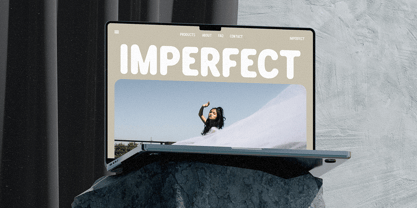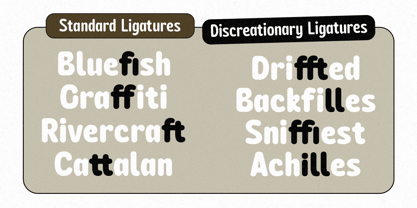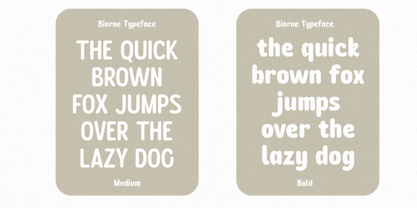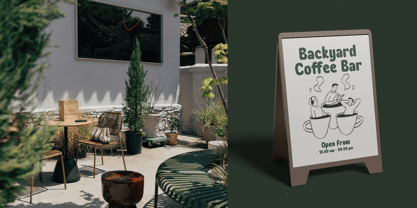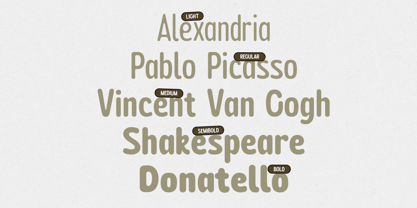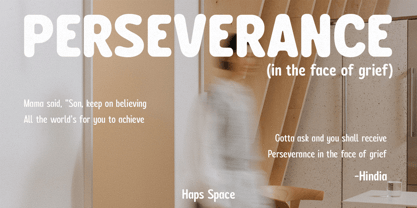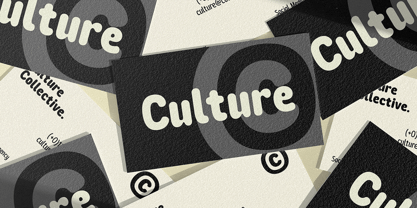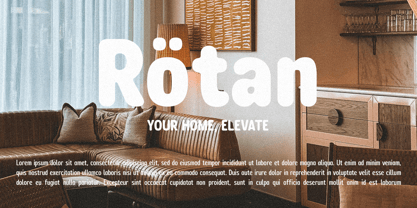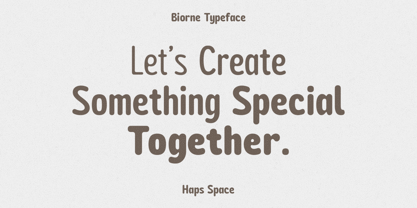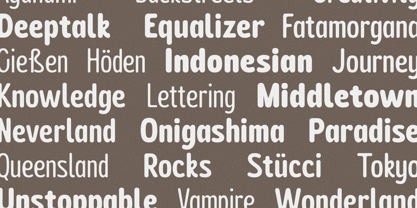
Biorne Rounded
por Haps Space
La familia tipográfica Biorne Rounded fue diseñada por Haris Purnama Putra, Egi Ahmad Mufid y publicada por Haps Space. Biorne Rounded contiene 5 estilos y opciones de paquete familiar.
Biorne Typeface, a modern and versatile display rounded typeface designed to give your projects a friendly yet professional feel. With its soft, rounded terminals and bold, confident letterforms, Biorne is an excellent choice for branding, headlines, packaging, and digital interfaces. This typeface includes 5 weights, providing a range of options to create visual hierarchy and dynamic compositions. Featuring over 300 glyphs and full variable support, Biorne offers extensive language coverage and creative flexibility, making it a robust addition to any designer's toolkit.
• Unique Letterforms